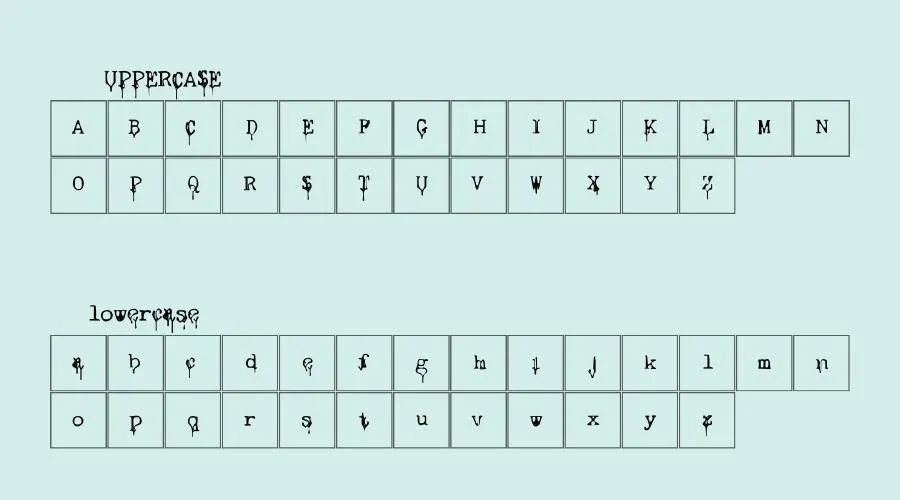
Nasal Drip Font
About Nasal Drip Font
The Nasal Drip Font was developed by a famous graphic designer known as the name of Dry Heaves Fonts with unique features of elements. This font is under the category of the fancy typeface family and is suitable for headings and titles.
The typeface has a number of distinctive characteristics, including a large selection of glyphs and support for other languages.
The font does not support all character sets, and there are no kerning pairs, which are two downsides. Yan utilizes its online generator tool for converting all your simple and normal textures into stylish ones with modern shapes. It is also suitable for CSS and adobe photoshops.
This font has amazing pairing quality, you can pair it with Wicker Man Font and make attractive projects. Its copy-and-paste procedures will help you to make urgent projects.